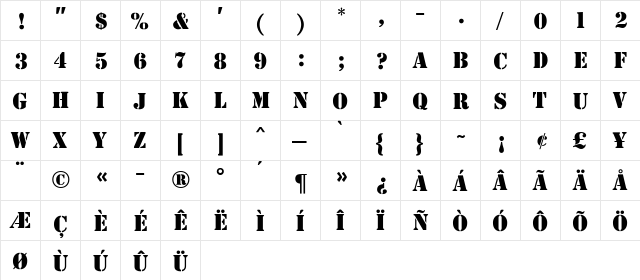
Stencil MN Regular
Design Context for Stencil MN Typeface
Stencil MN borrows the utilitarian aesthetic of stencil lettering, with its characteristic cutaways and no-frills construction lending an industrial edge.
Ideal for industrial branding, streetwear, military-adjacent aesthetics, and urban signage projects.
Pro Tip: Pair Stencil MN with raw, utilitarian design elements — exposed concrete textures, flat colour, and minimal ornamentation suit it well.